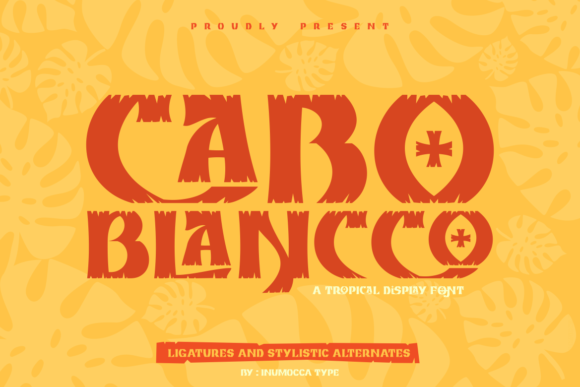
Unleash a Visual Symphony with Cabo Blancco: The Ultimate Display Font for Dazzling Digital Creations
Journey into the realm of captivating typography with Cabo Blancco, a font that epitomizes boldness, uniqueness, and tropical flair. This display font is not just a collection of letters; it's an artistic expression that transforms your digital creations into mesmerizing spectacles.
Picture this: you're designing a website, crafting a social media post, or creating eye-catching graphics. With Cabo Blancco, your words leap off the screen, commanding attention and leaving an unforgettable impact. The font's bold strokes and tropical vibe infuse your designs with an energetic rhythm, making them impossible to ignore.
Cabo Blancco's versatility knows no bounds. It shines as a beacon of brilliance in headlines, titles, logos, and posters. Its captivating presence adds a touch of elegance to branding materials, elevates invitations to new heights, and brings a burst of vibrancy to social media graphics.
Whether you're a seasoned designer or a creative enthusiast, Cabo Blancco is your secret weapon for captivating audiences and leaving a lasting impression. Its intuitive nature makes it accessible to all, while its exceptional quality ensures professional results every time.
Join the growing legion of creatives who have embraced Cabo Blancco's allure. Transform your digital creations into captivating masterpieces that dance before the eyes, leaving viewers spellbound. Experience the magic of Cabo Blancco today and unlock a world of visual enchantment.